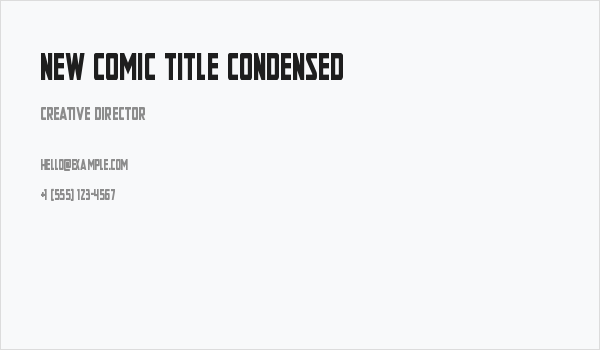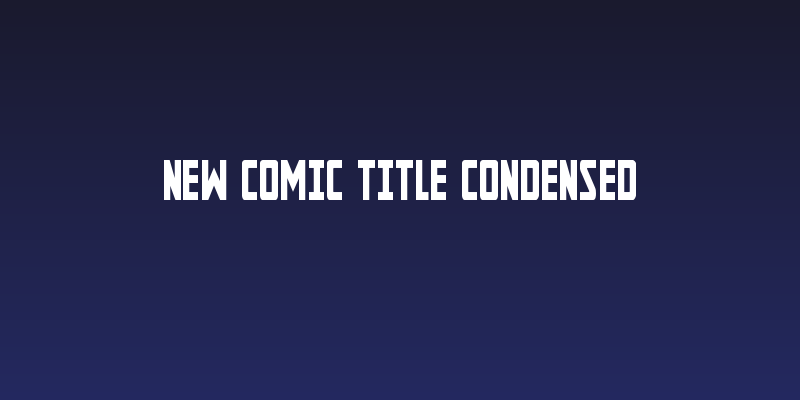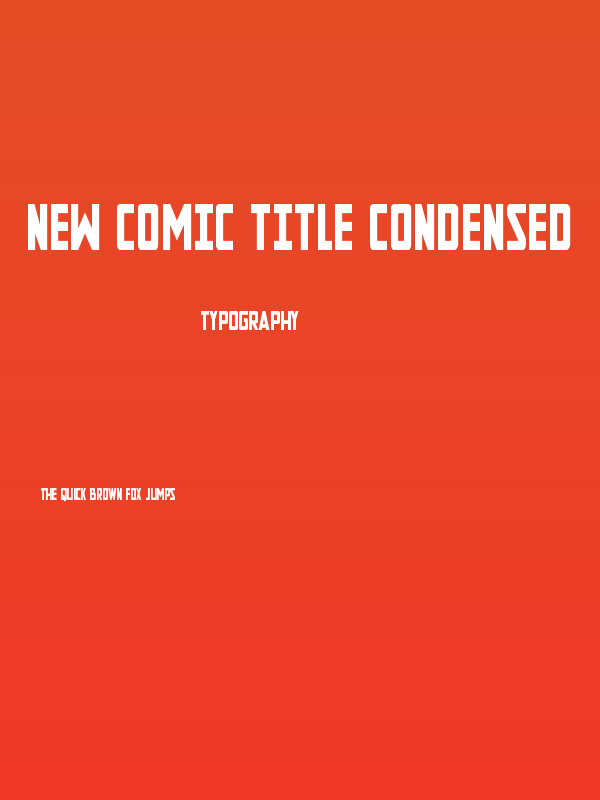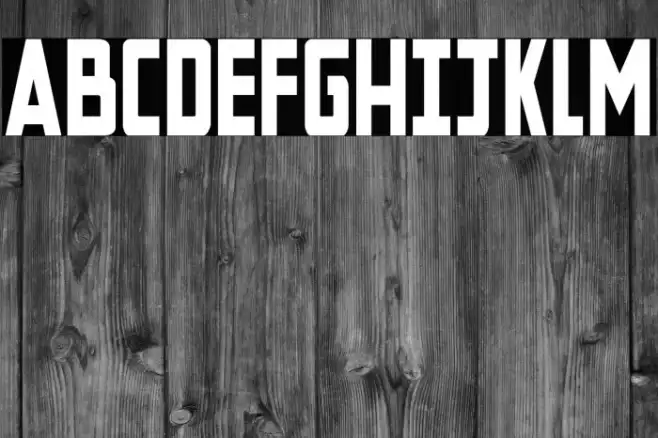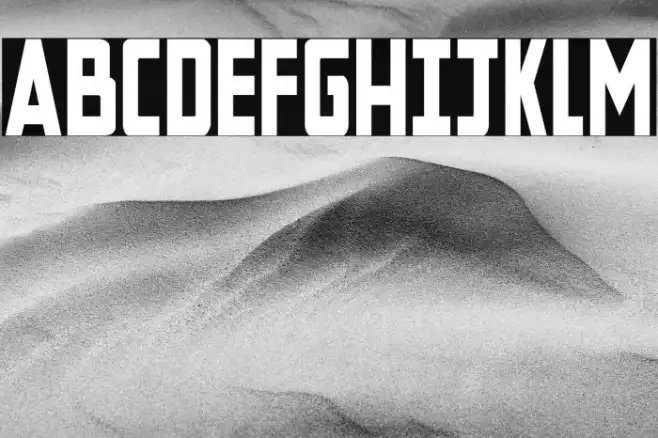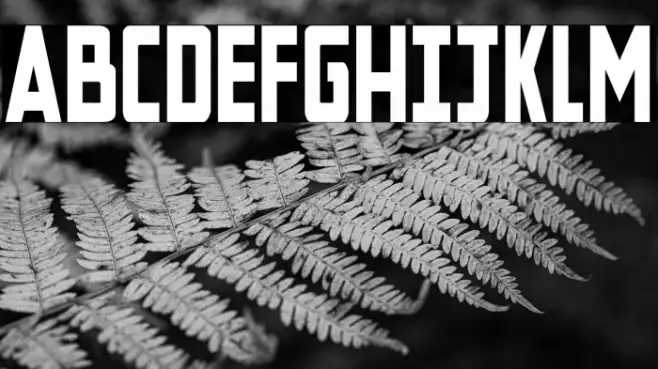
New Comic Title Condensed Font
New Comic Title Condensed Description
This font features a bold and condensed style, characterized by its strong geometric shapes and uniform stroke widths. The uppercase letters are particularly striking, with a blocky and robust appearance that commands attention. The lowercase letters maintain the same boldness, ensuring consistency across different text sizes. The numerals are clear and legible, making them suitable for various applications. Special characters are included, providing versatility for different design needs. The overall design is modern and impactful, ideal for making a statement.